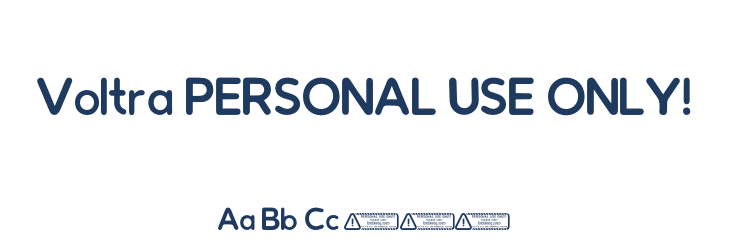
Posche Font
A Gothic-style font with sharp, angular lines and ornate detailing, ideal for dramatic and vintage designs.
Eu mezmo! Font
A playful, curly font with a whimsical, hand-drawn style.
Voltury Font
A bold, dynamic script font with elegant curves and high contrast.
Voltra PERSONAL USE ONLY! Font